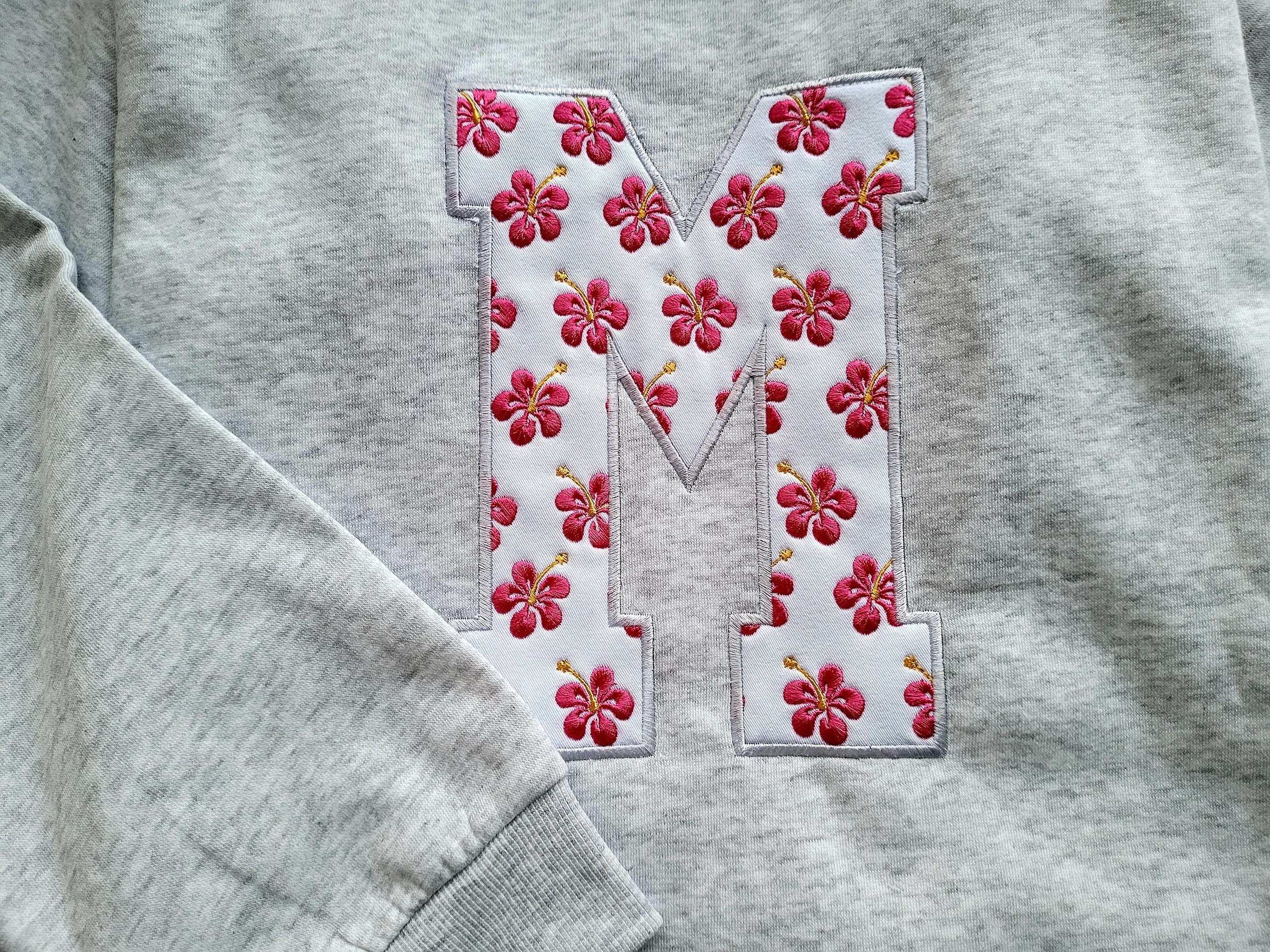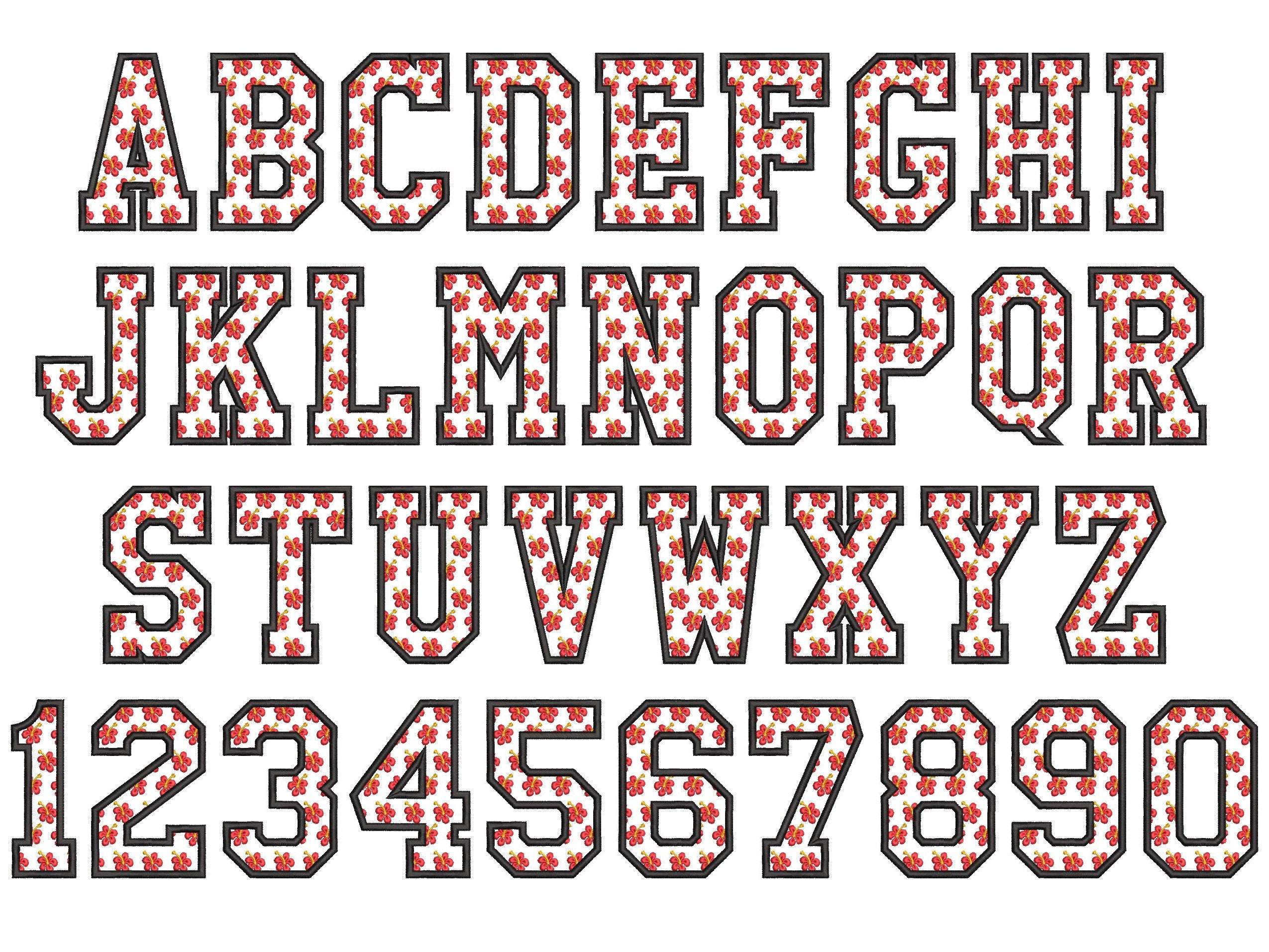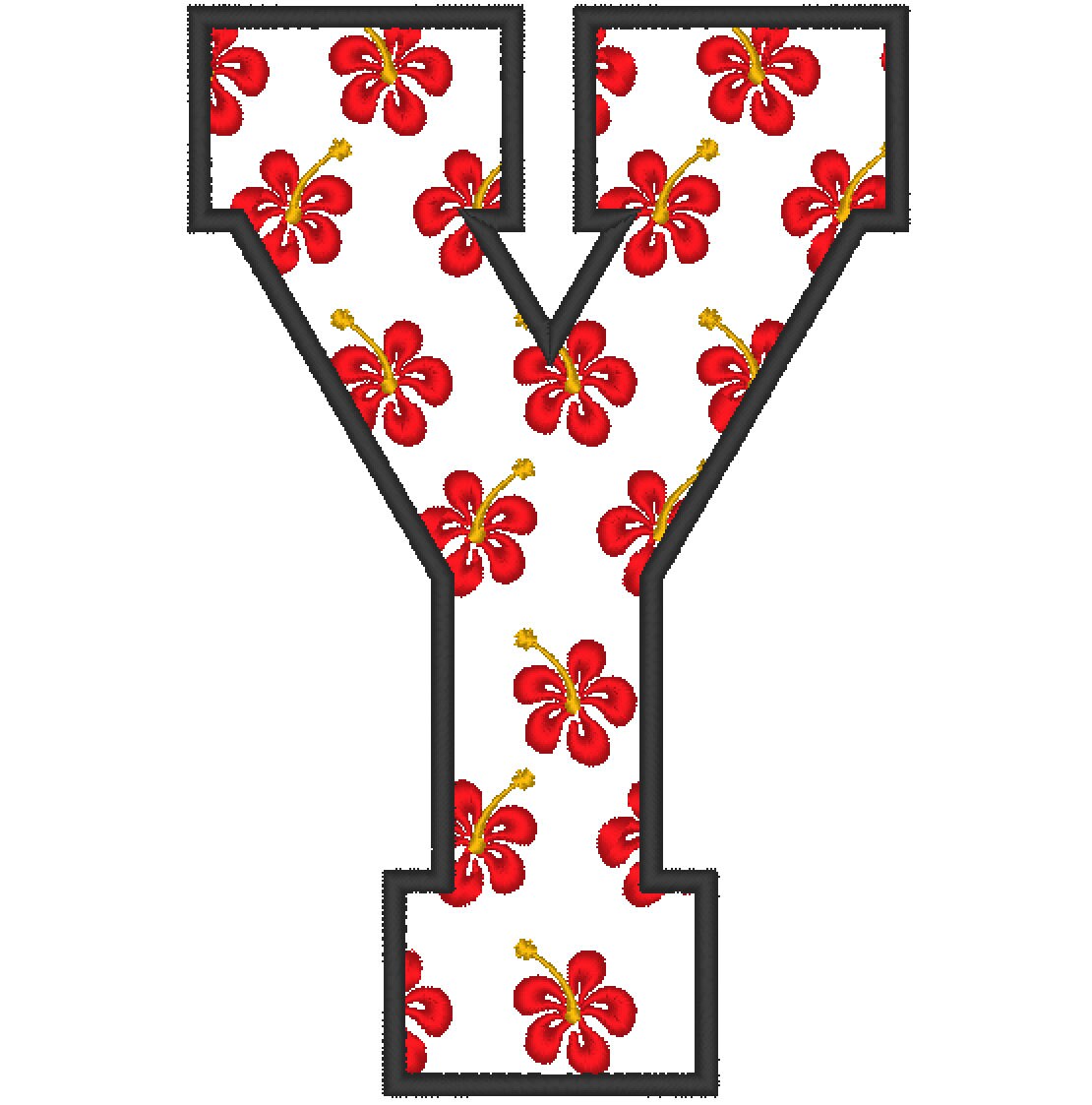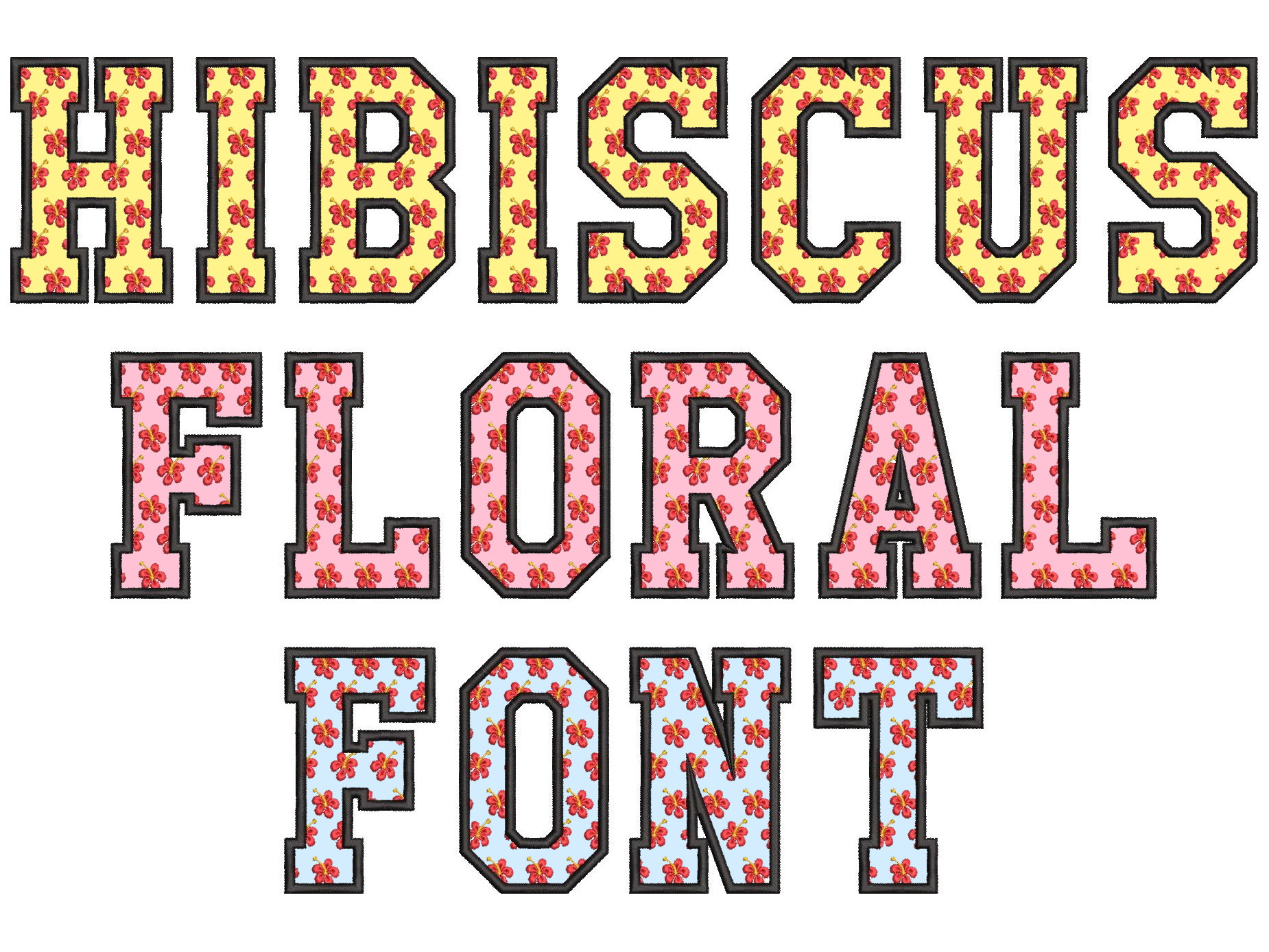
Hibiscus flower block Font floral alphabet applique machine embroidery designs assorted sizes, kids child name summer monogram, included BX
Whole alphabet uppercase letters from A up to Z.
Tiny hibiscus flowers are part of the embroidery. Stunning effect!